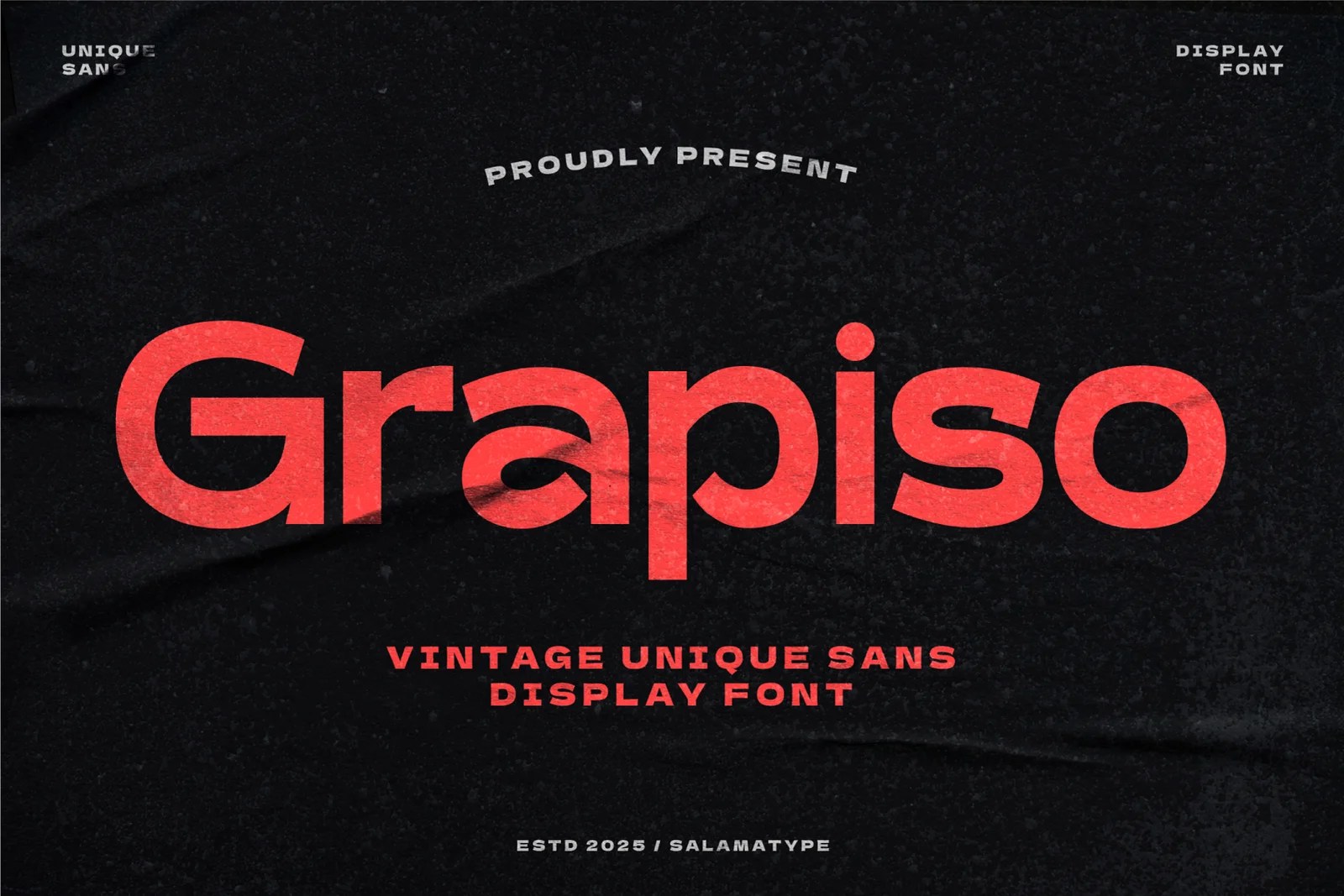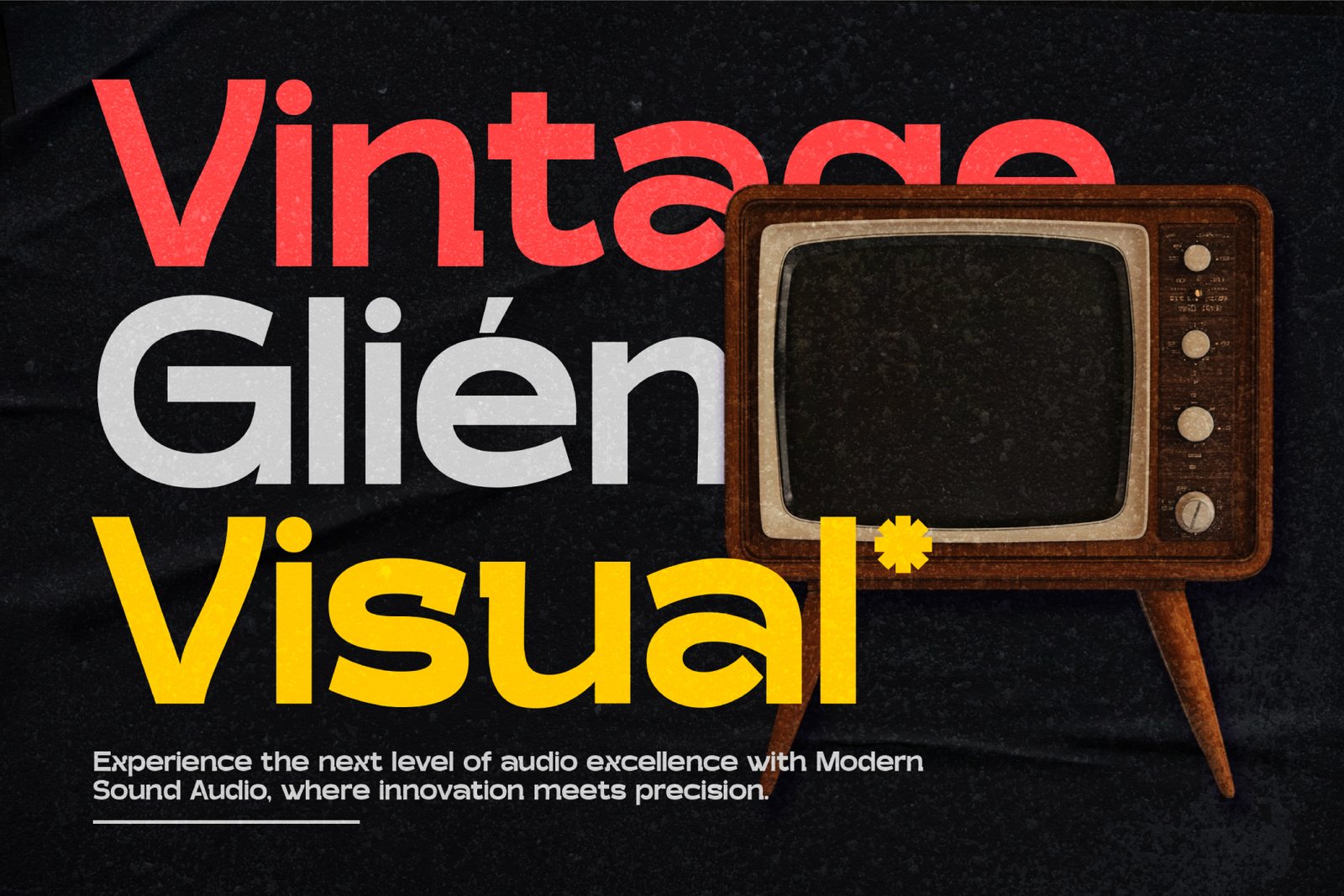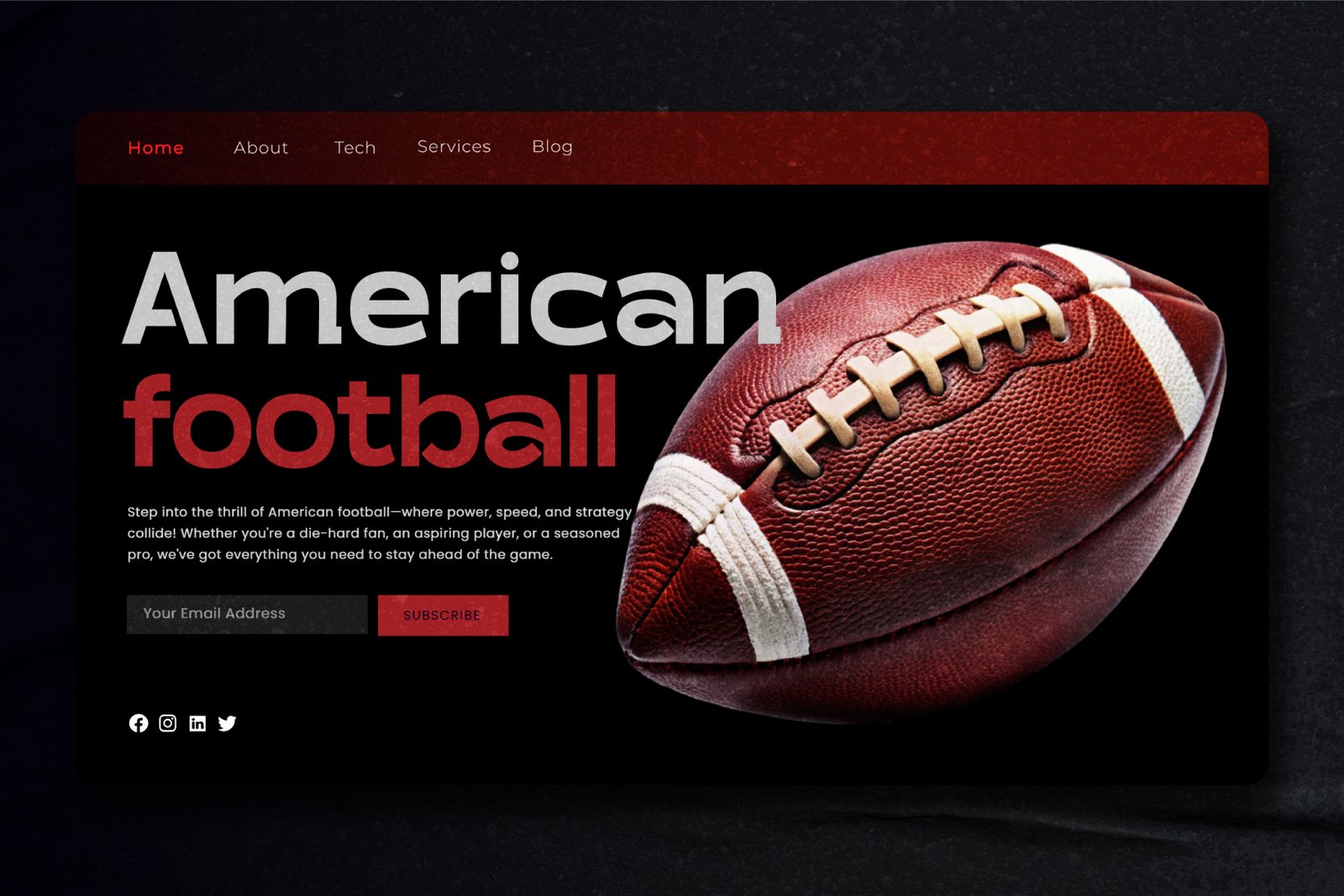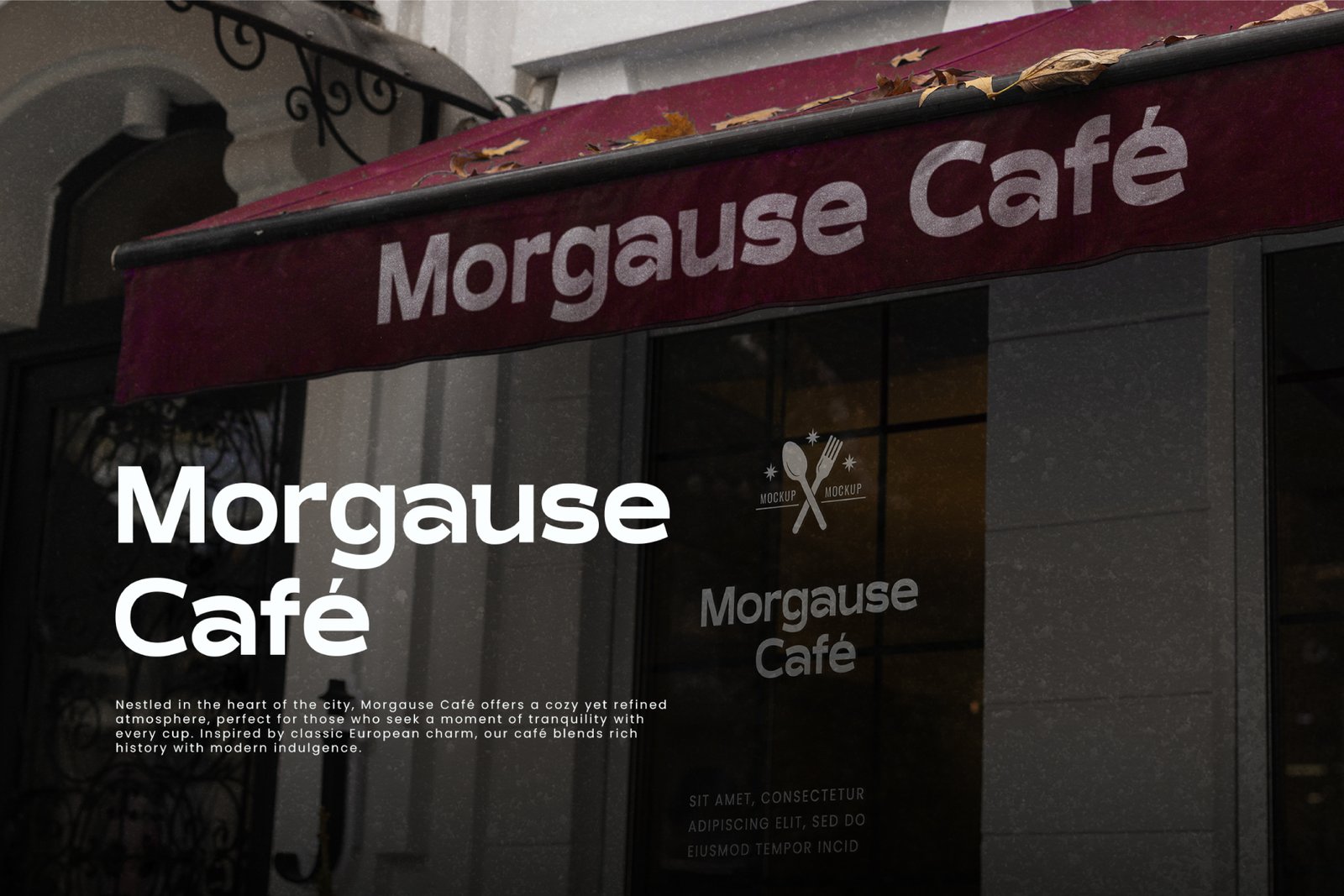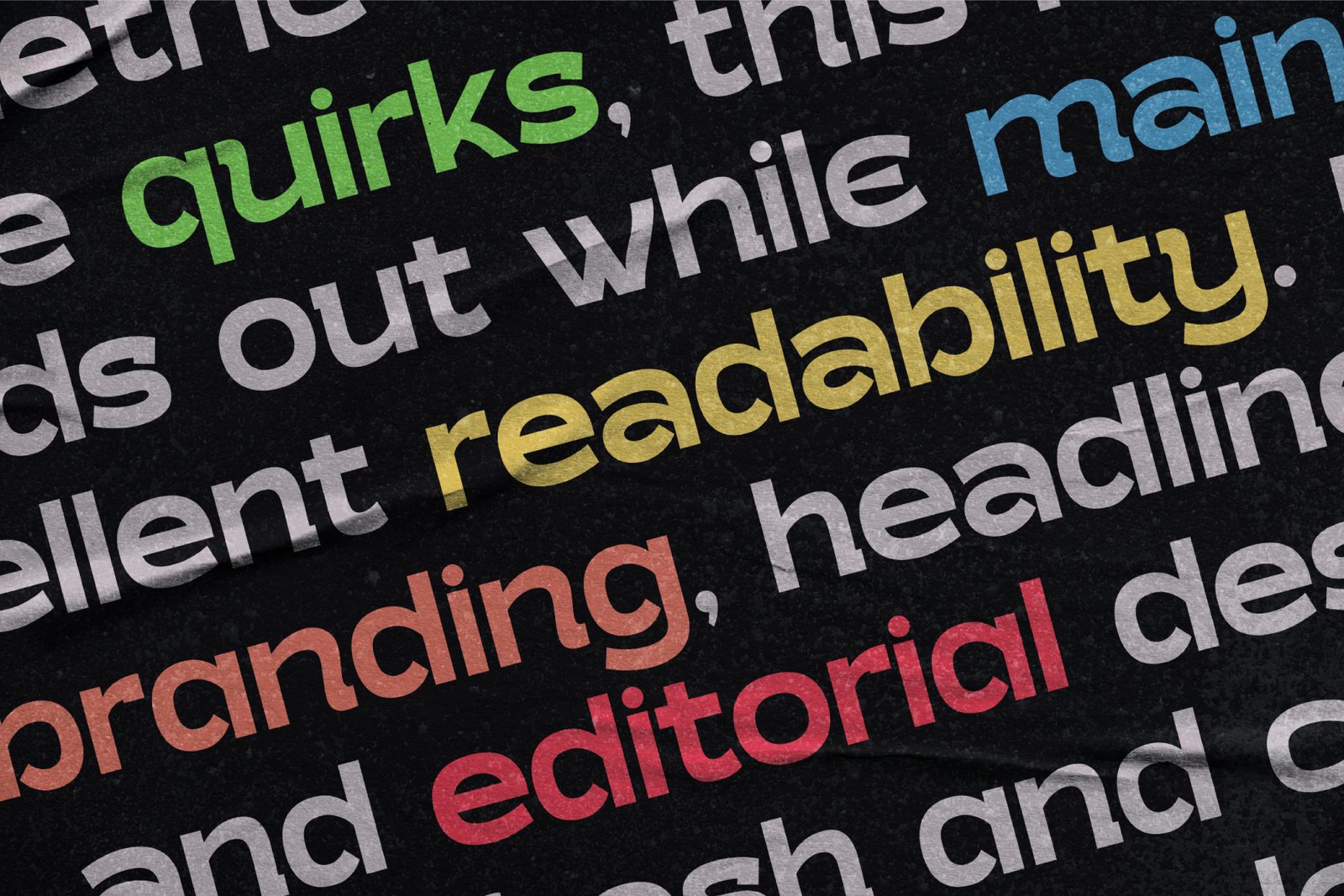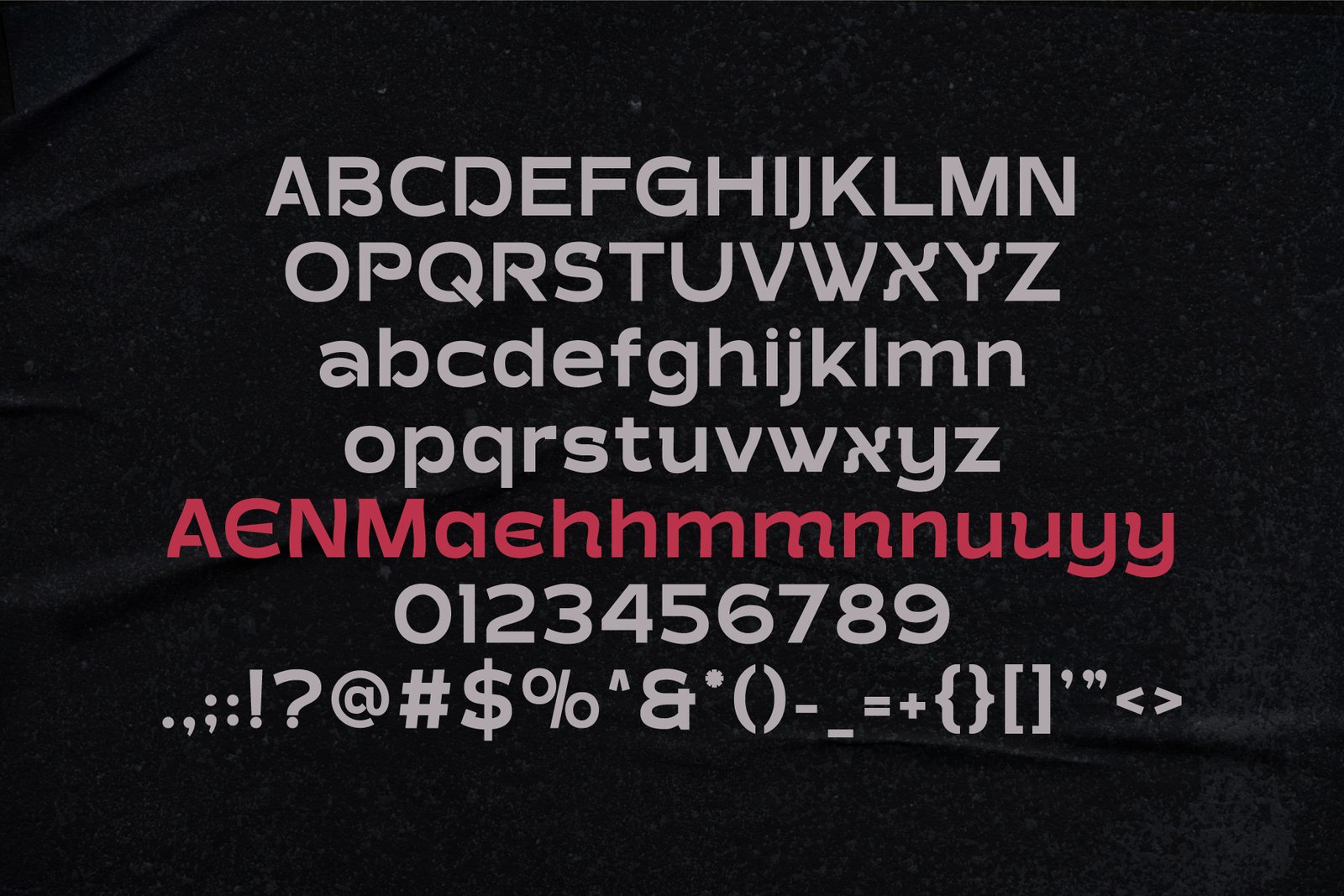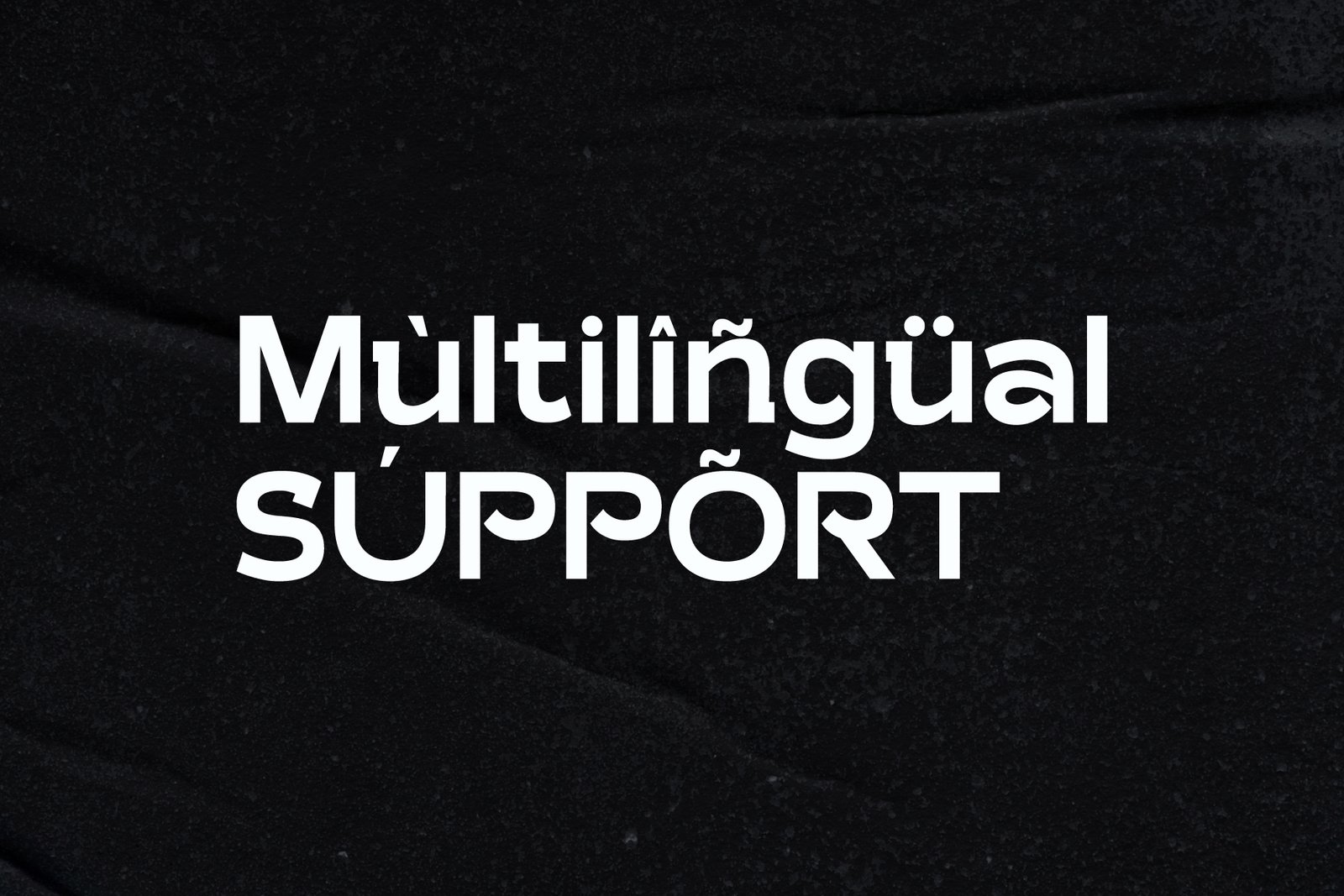
- Grapiso Unique Sans
Grapiso
Introducing Grapiso, a sleek and modern sans serif font designed to bring a fresh and distinctive look to your designs. With its clean lines and contemporary style, Grapiso is the perfect choice for those seeking a unique yet professional aesthetic. Ideal for logos, websites, posters, branding, web design, social media advertising, and sports posters.
Enhance your designs with the unique charm of Grapiso a font that combines simplicity with a distinctive touch!